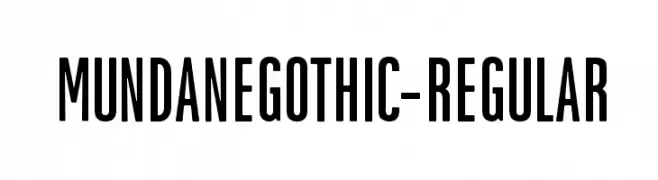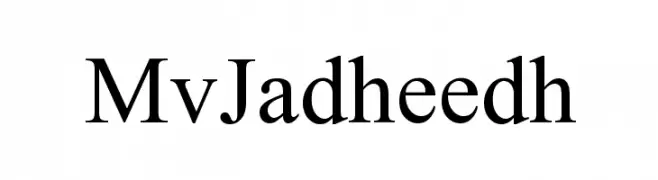
A modern, geometric font with bold, rounded characters and a compact design.
A classic blackletter font with ornate, angular designs and a medieval aesthetic.
A bold, gothic-style font with sharp angles and thick strokes, ideal for dramatic headlines.
A bold, dynamic script font with high contrast and a brush-like appearance.
A modern, tall, and narrow sans-serif font with a clean and professional appearance.
A classic serif font with elegant strokes and medium contrast.
A classic serif font with elegant strokes and a timeless appearance.
A bold, brush-style font with a hand-drawn, artistic appearance.
A spooky, decorative font with elongated, twisted forms and gothic swirls.
Illustrative display font made from office supply drawings.